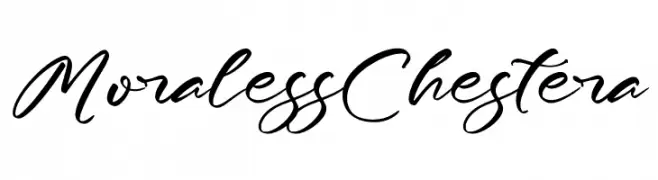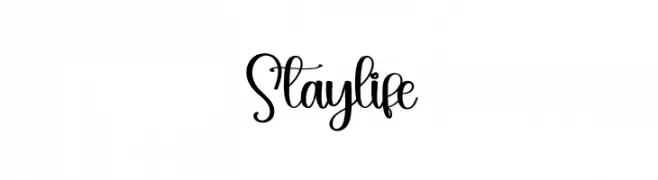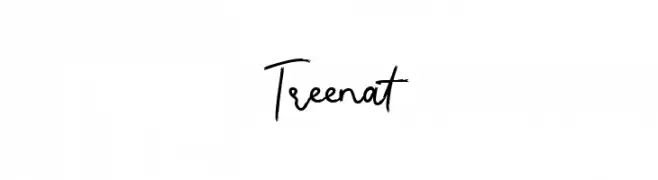
Elegant, handwritten cursive script with fluid, connected strokes.
( Fonts by Qkila )
Bold, graffiti-style display font with thick outlines and drop shadows.
( Fonts by FreshtypeINK )
Playful handwritten script with tall, narrow, and whimsical letterforms.
( Fonts by Staircase Studio )
Tall, narrow handwritten script with playful, fluid strokes.
( Fonts by Sugartype )
Energetic handwritten script with tall, narrow, and playful strokes.
( Fonts by Scratchones )
Casual handwritten script with tall, looping forms.
( Fonts by singlelinestd )
Minimalist single-line sans-serif with geometric shapes.